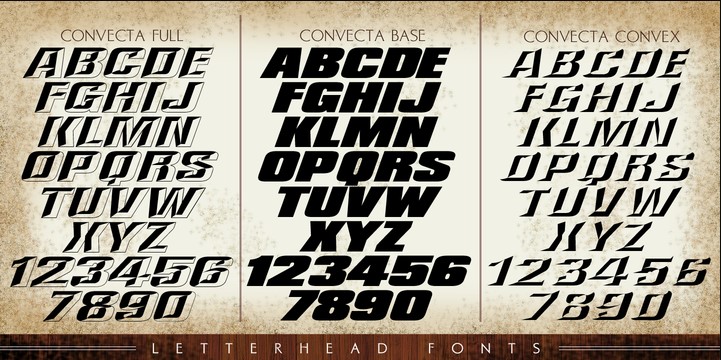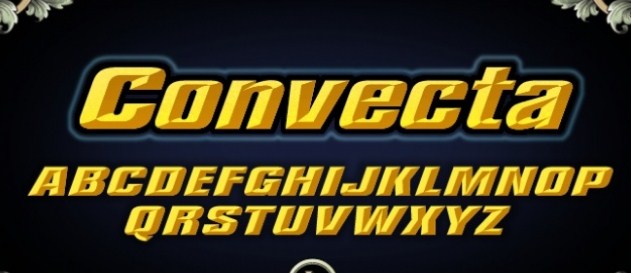
Lhf Convecta Base Font
Lhf convecta base font is known as the best text generator. This is widely used in the letterhead and also in graphic design. This make the content fashionable. The content material cloth writer creates this font has taken the idea from the luckiest guy font further, that new typeface has located on the font.
Regular with many professional designers, it’s miles giving a pinnacle-notch like-minded search for particular operations. In this behavior, it’s miles going to show one of the most unique typefaces. Lhf Convecta Base Font Free This great pinnacle-notch font has are available in a not unusual variety at the detail of a number of the characters. Having the paper format like samantha script it has to function the uppercase, punctuation marks.